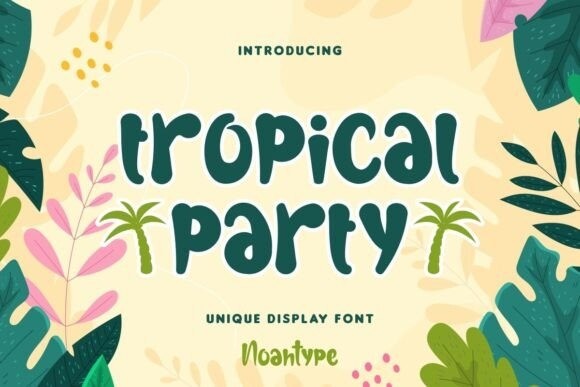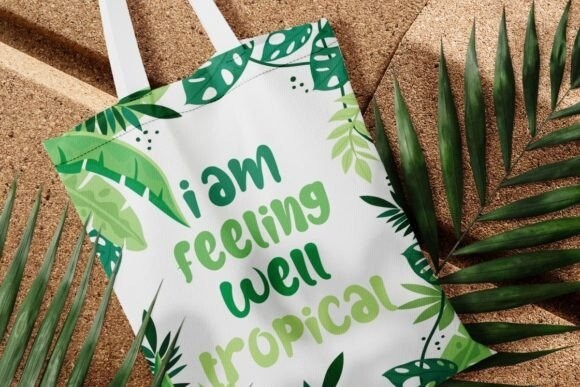
Tropical Party Font
Tropical Party Font is a playful and fun display font with kids, comic and cartoon theme . This font will bring freshness in summer mood making it suitable for many industries, such as advertisement, café, craft, drink, fashion, food, homeware, publishing, and many more!